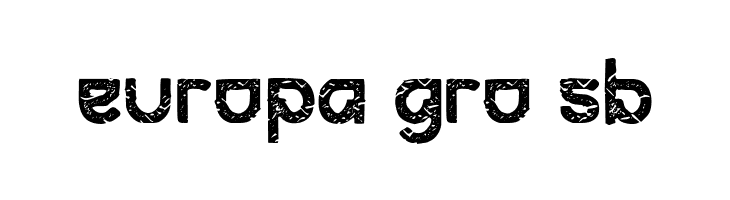
A bold, distressed font with a rugged, industrial feel.
A bold, distressed font with a grunge, vintage style.
A bold, distressed font with a vintage, weathered appearance.
A distressed, grunge-style font with a textured, vintage appearance.
A raw, edgy font with jagged strokes and a distressed, graffiti-like appearance.
A rugged, distressed font with a hand-drawn, edgy style.